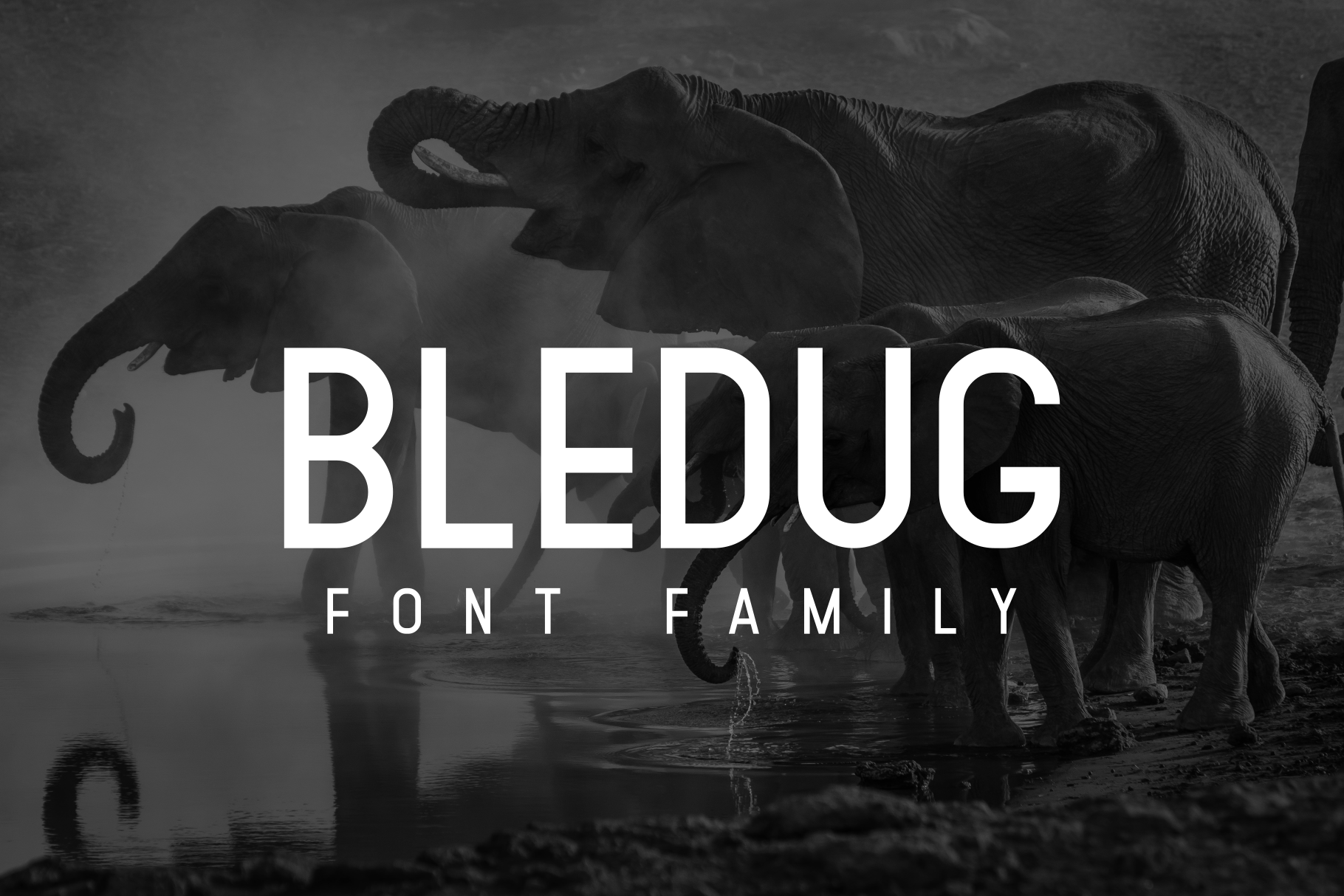
Bledug Font Family
Bledug is all caps sans serif font family. It comes in 8 styles, three weights, three italic, outline, and wireframe. Bledug is perfectly suited to headlines, branding visual identity, poster, logo, magazines and etc.
- Bledug Light Light and Light Italic.
- Bledug Regular and Italic.
- Bledug Bold Bold and Bold Italic.
- Bledug Outline
- Bledug Wireframe